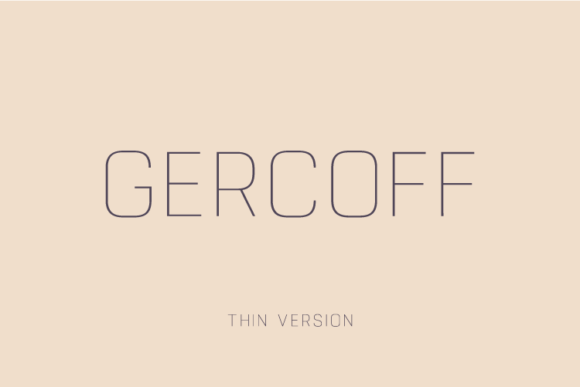
Uncovering the Perfect Vintage Touch: Gercoff Thin Font
As a designer, you’ve likely found yourself pouring over font combinations, searching for that elusive ‘wow’ factor. It’s the moment when a project comes together, and every element falls into place – the colors, the layout, and of course, the typography. For many of us, this ‘aha’ moment is what drives our passion for design.
Gercoff Thin Font is a stylish sans serif font that embodies the essence of vintage charm. Its clean lines and smooth edges make it a perfect fit for vintage logo designs, headers, and small amounts of text. Whether you’re working on a retro-themed project or simply want to add a touch of nostalgia to your design, Gercoff Thin Font is an excellent choice.
For designers, finding the right font can be a game-changer. It’s what sets a project apart from the rest and gives it that extra oomph. With Gercoff Thin Font, you can add a sophisticated and timeless touch to your work, making it a valuable addition to any designer’s toolkit.
Key Features of Gercoff Thin Font
- Unique Characteristic: Distinctive thin lines and delicate curves for a sophisticated look
- Font Style: A thin and elegant font ideal for headings, titles, and body text in formal and creative projects
- Font Weight: Available in a single weight, Gercoff Thin, for a consistent and streamlined appearance
Gercoff Thin Font Review
Overall, I’m impressed with the sleek, modern aesthetic of Gercoff Thin Font. ✨ It’s a great choice for anyone looking to add a touch of sophistication to their designs. The font’s delicate, elegant lines make it perfect for use in high-end branding, editorial content, and even some digital interfaces.
One of the standout features of Gercoff Thin Font is its legibility, even at smaller sizes. ✨ It’s a testament to the font’s thoughtful design and careful attention to detail. The font’s open counters and subtle hinting ensure that text remains crisp and clear, making it a joy to read.
- ⚠️ Gercoff Thin Font may not be the best choice for use in body text, as it can be quite difficult to read at very small sizes.
- ⚠️ The font’s thin lines can make it prone to aliasing, which can be distracting in some cases.
- ⚠️ While the font is highly legible, it may not be the best choice for use in low-resolution or pixelated environments.
Overall, I’d recommend Gercoff Thin Font for anyone looking to add a touch of elegance and sophistication to their designs. While it may have some limitations, the font’s thoughtful design and careful attention to detail make it a great choice for the right projects.
Gercoff Thin Font Practical Application Guide
Gercoff Thin font is ideal for creating modern, minimalist designs. Use it for:
- Logo designs and branding materials.
- Typography-based graphics and posters.
- Editorial content and publications.
For optimal results, use Gercoff Thin font in conjunction with other modern fonts and minimal color
Alternatives to Gercoff Thin Font
1. Open Sans Thin
Open Sans Thin is a modern sans-serif font that is highly legible and versatile. It is suitable for body text and headings, and is particularly effective for digital and online use. It is thinner and more minimalist compared to Gercoff Thin Font, making it ideal for modern and sleek designs.
2. Lato Thin
Lato Thin is a sans-serif font that is clean and elegant. It is suitable for both body text and headings, and is particularly effective for modern and minimalist designs. Compared to Gercoff Thin Font, Lato Thin is more delicate and refined, making it ideal for designs that require a touch of sophistication.
3. Montserrat Thin
Montserrat Thin is a sans-serif font that is highly legible and versatile. It is suitable for body text and headings, and is particularly effective for modern and urban designs. Compared to Gercoff Thin Font, Montserrat Thin is more geometric and edgy, making it ideal for designs that require a strong and modern feel.